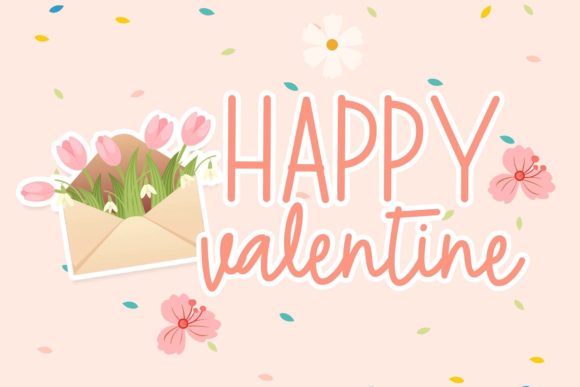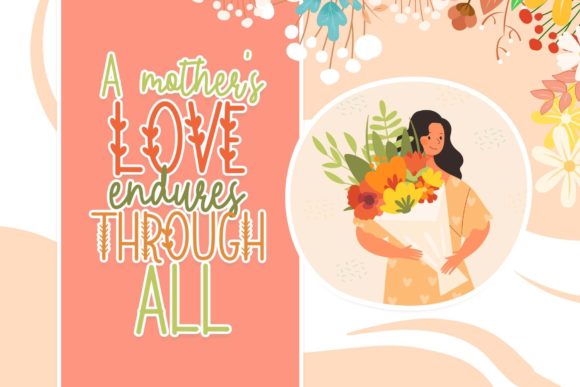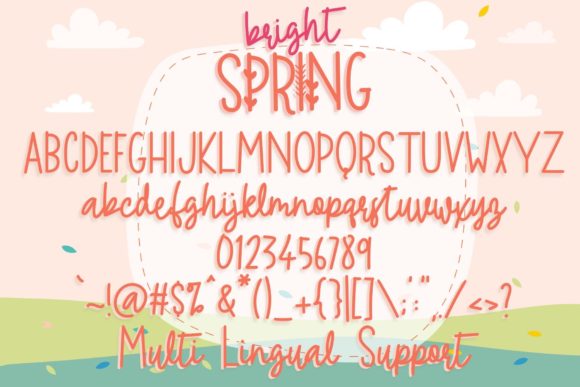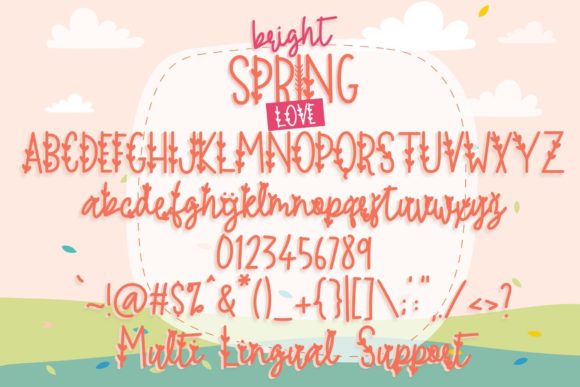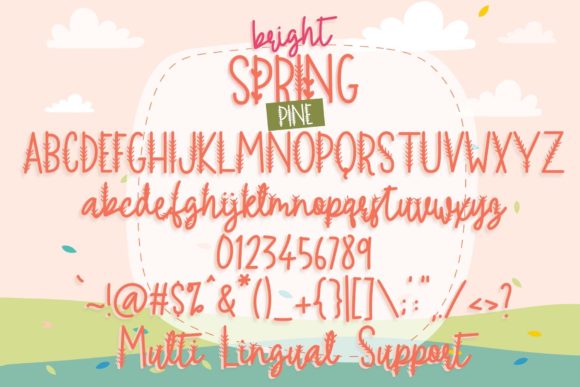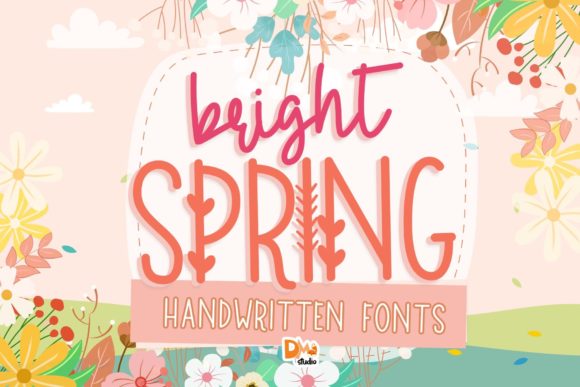
Introducing Bright Spring Font: The Perfect Addition to Your Spring Designs
As the snow melts and flowers start to bloom, designers and crafters alike are on the lookout for fresh and exciting fonts to give their projects a springtime feel. Look no further than Bright Spring Font, a delightful collection of two complementary fonts that are sure to add a touch of whimsy and charm to your designs.
A Cute Font Collection for Spring
Bright Spring Font is a carefully curated duo of decorative and handwritten fonts that are specifically designed to capture the essence of the spring season. The fonts are created with love and attention to detail, making them perfect for a wide range of design projects, from greeting cards and invitations to social media graphics and crafts.
What Makes Bright Spring Font So Special?
So, what sets Bright Spring Font apart from other font collections? Here are just a few reasons why designers and crafters are falling in love with this adorable font duo:
- Cute and Playful Design: Bright Spring Font features a playful and charming design that’s perfect for spring. The fonts are full of personality and whimsy, making them ideal for designs that need a touch of fun and sophistication.
- Versatile and Flexible: Whether you’re designing a greeting card, crafting a handmade project, or creating social media graphics, Bright Spring Font is the perfect choice. The fonts are versatile and flexible, making them suitable for a wide range of design applications.
- High-Quality and Unique: Bright Spring Font is a high-quality font collection that’s been carefully crafted to ensure that your designs stand out from the crowd. The fonts are unique and distinctive, making them perfect for designers who want to add a touch of personality to their work.
How to Use Bright Spring Font in Your Designs
Using Bright Spring Font in your designs is easy and straightforward. Here are a few tips to get you started:
- Pair the Fonts for a Unique Look: For a unique and eye-catching look, try pairing the decorative and handwritten fonts together. This will add depth and interest to your designs, making them more engaging and effective.
- Experiment with Colors and Textures: Bright Spring Font looks great in a variety of colors and textures. Experiment with different combinations to find the perfect look for your design.
- Add a Personal Touch: Bright Spring Font is perfect for adding a personal touch to your designs. Try using the fonts to create custom illustrations, graphics, or text elements that reflect your personality and style.
Why Designers and Crafters Love Bright Spring Font
Bright Spring Font has quickly become a favorite among designers and crafters, and it’s easy to see why. Here are just a few reasons why this font collection is a must-have for anyone who loves design and crafting:
- High-Quality Design: Bright Spring Font features a high-quality design that’s perfect for professional-looking designs. The fonts are crisp and clear, making them ideal for printing and digital applications.
- Perfect for Spring Projects: Bright Spring Font is specifically designed for spring projects, making it the perfect choice for designers and crafters who want to create seasonal designs.
If you’re looking for a fresh and exciting font to add to your design collection, look no further than Bright Spring Font. This adorable font duo is perfect for spring projects, and its versatility and flexibility make it suitable for a wide range of design applications. With its cute and playful design, high-quality construction, and ease of use, Bright Spring Font is a must-have for designers and crafters who want to create unique and engaging designs.